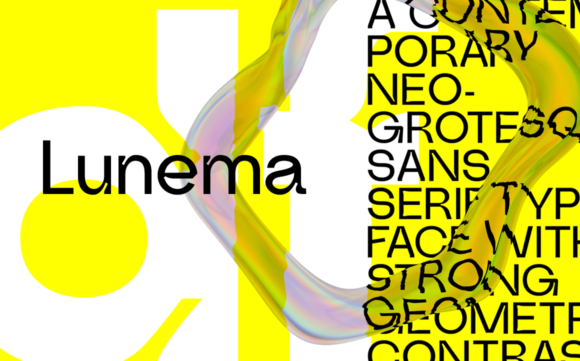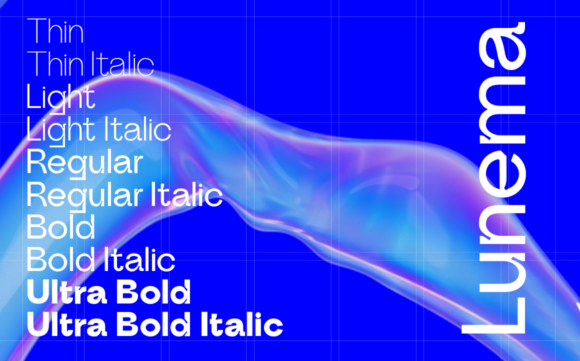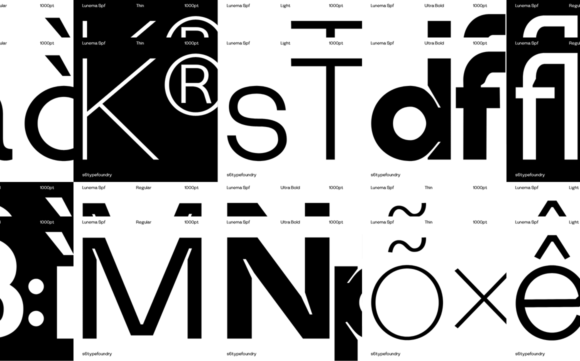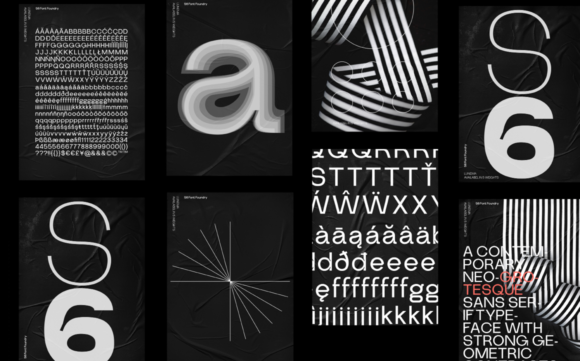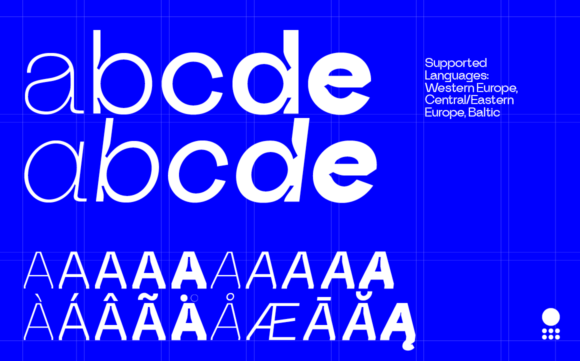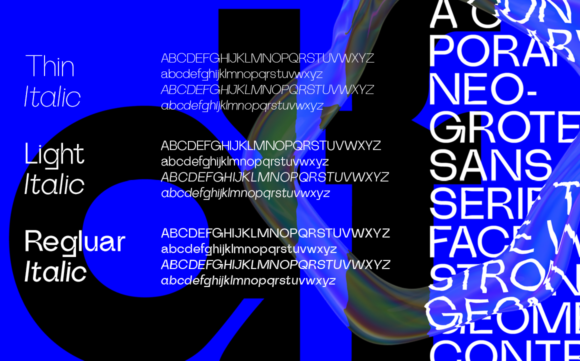
Introduction to Lunema Font
As designers, we’ve all been there – staring at a blank canvas, trying to bring our creative ideas to life. The perfect font can make all the difference, elevating our project from bland to grand. For those seeking a reliable design resource, we’re excited to introduce you to the Lunema Font – a sleek, modern sans serif font that’s sure to take your creative project to the next level.
Imagine a font that effortlessly adapts to a wide range of projects, from digital designs to print materials, with its clean and minimal aesthetic. The Lunema Font is the perfect companion for designers seeking a high-quality font that can seamlessly integrate into their design, whether it’s a logo, brochure, or website with a transparent background.
Key Features of Lunema Font
- Features a transparent background, allowing for easy customization and versatility in design applications.
- Comes in a high-quality, scalable format with resolutions up to 300 DPI, ensuring crisp and clear display.
- Designed to be highly legible, making it an ideal choice for a variety of creative projects, from print to digital media.
- The Lunema Font family includes a range of styles and weights, providing users with a versatile set of design options.
- Perfect for designers seeking a high-quality, free design resource to elevate their creative projects.
Honest Review: Lunema Font
As a designer, I’m always on the lookout for high-quality fonts that can elevate my creative projects. Recently, I had the chance to try out the Lunema Font, and I must say, it’s been a pleasant surprise.
Here are some things that work well with the Lunema Font: ✨
- Its elegant and sophisticated design makes it perfect for luxury brands and high-end creative projects.
- It’s highly customizable, allowing you to adjust the font’s style to fit your design needs.
However, there are a few limitations to keep in mind: ⚠️
- The font may not be suitable for designs that require a transparent background, as it has a solid fill.
- The font’s design can be a bit too ornate for some projects, so use it sparingly.
Overall, I’m impressed with the Lunema Font’s high quality and versatility. It’s definitely a great addition to any designer’s toolkit, and I’d recommend it for any creative project that requires a touch of elegance and sophistication.
Lunema Font
The Lunema Font is a versatile and elegant design resource perfect for a variety of creative projects. Its high-quality, transparent background makes it ideal for use in digital design.
The Lunema Font is perfect for a variety of projects, including logos, business cards, wedding invitations, and more. Its high-quality design makes it ideal for use in any creative project.
To get the most out of the Lunema Font, be sure to experiment with different font sizes, colors, and combinations to create unique and eye-catching designs. Additionally, consider pairing the font with other high-quality design resources to create a cohesive and professional look.